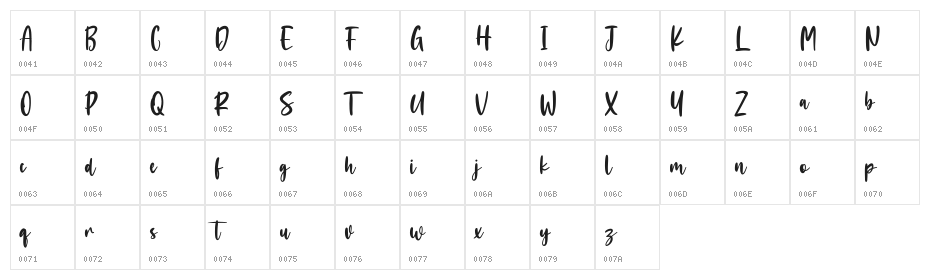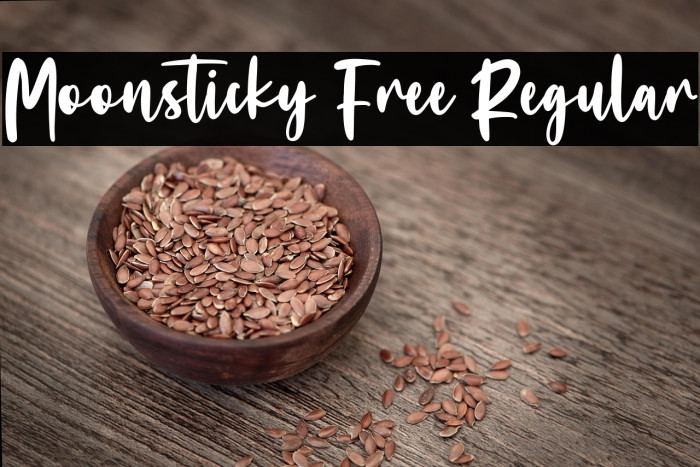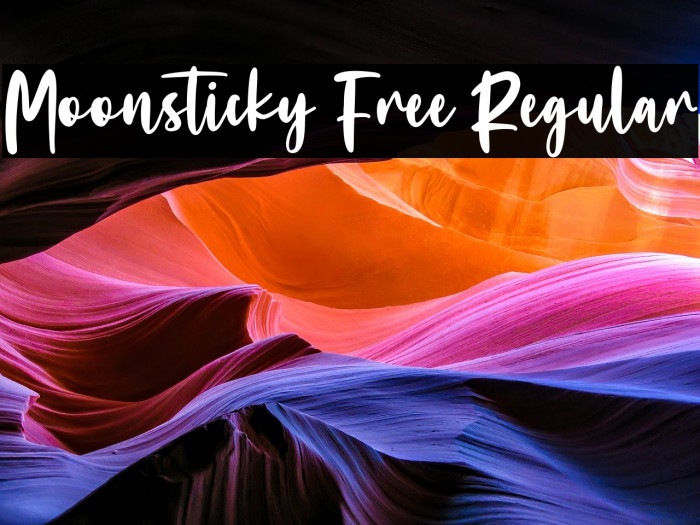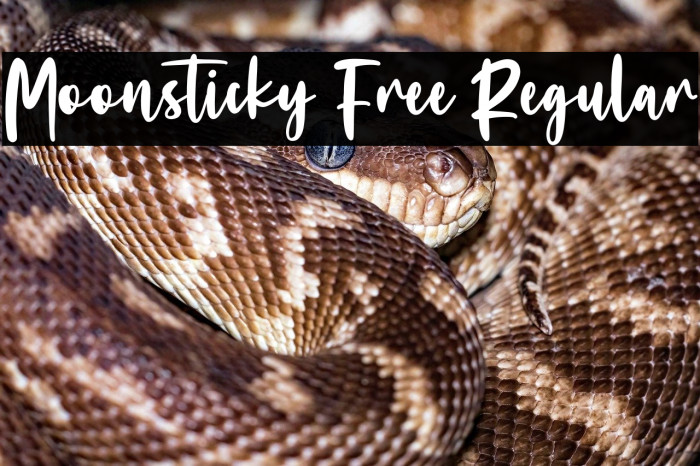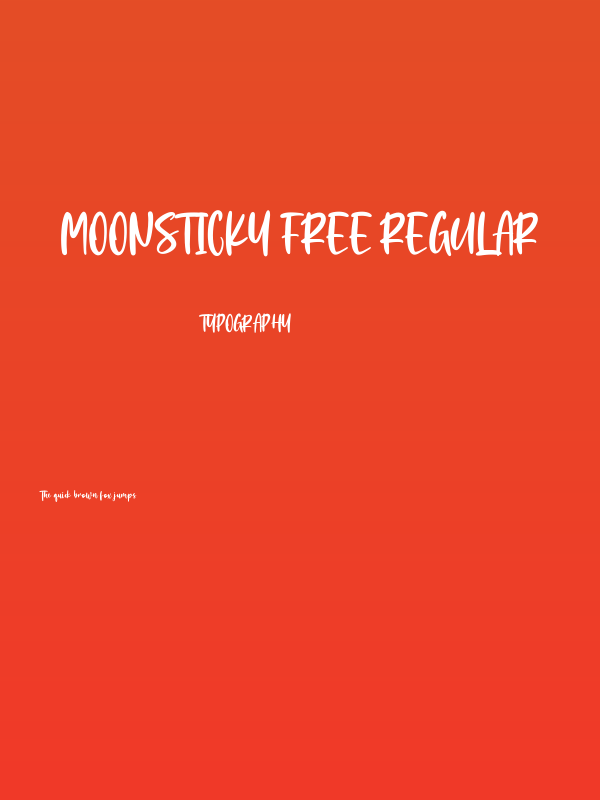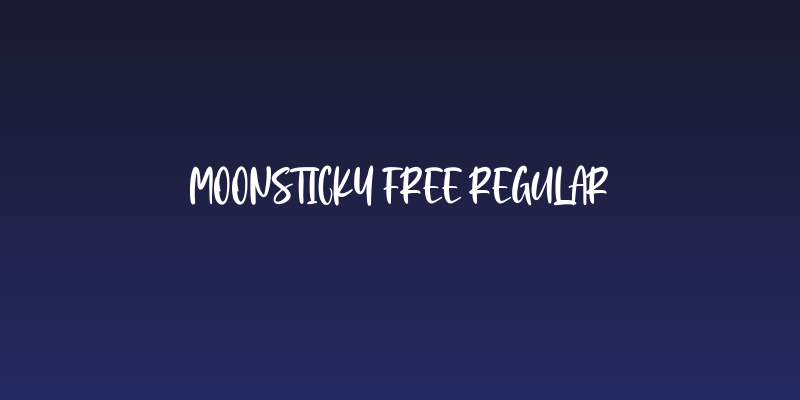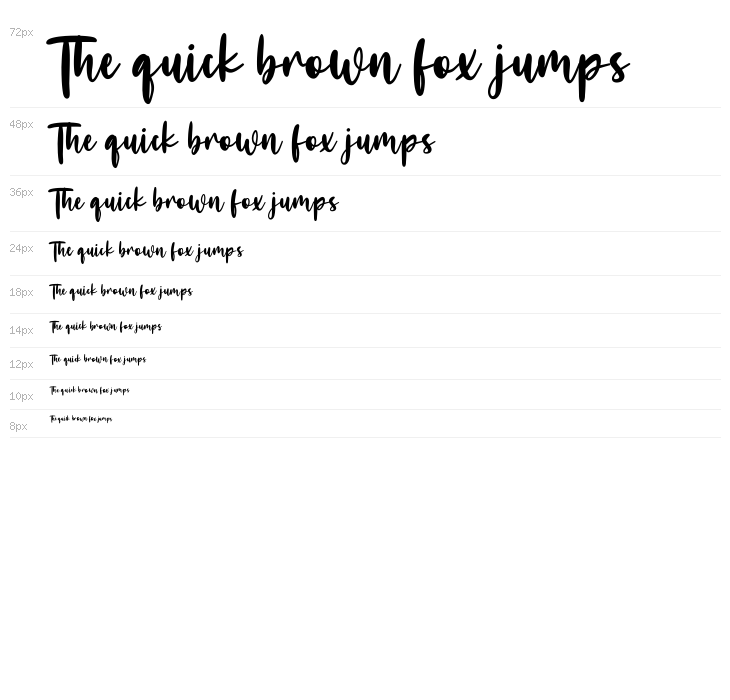
Moonsticky Free Regular Font
Moonsticky Free Regular Description
This font features a playful and energetic handwritten style, characterized by its bold and flowing strokes. The letters are slightly slanted, giving a dynamic and informal appearance. The uppercase and lowercase letters maintain a consistent style, with smooth curves and a lively rhythm. The font's design is both expressive and approachable, making it suitable for projects that require a personal touch. The characters are well-spaced, ensuring readability while maintaining a casual aesthetic. This font is ideal for creative projects that aim to convey warmth and friendliness.
| Use Case | Logos, Headlines, Informal text |
| Proposed Projects | Greeting cards, social media graphics, personal branding, and informal invitations. |